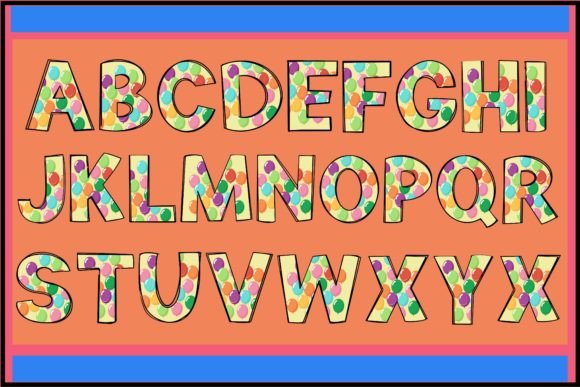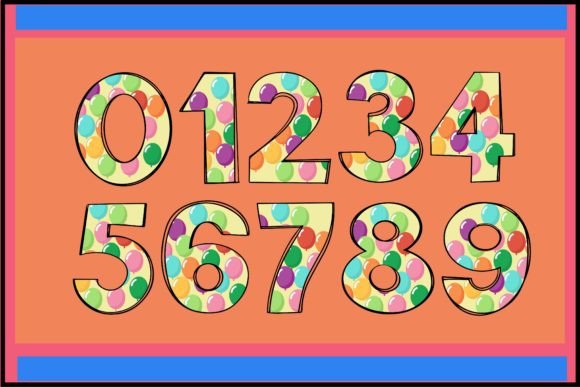
Introducing Balloon Font: The Playful and Colorful Choice for Kids’ Designs
Are you looking for a font that can add a touch of playfulness and cheerfulness to your designs? Look no further than Balloon Font! This cartoon-like font is perfect for children-themed designs, and when combined with bright colors, it’s sure to make your text stand out. In this article, we’ll explore the features and benefits of Balloon Font, and how you can use it to create outstanding designs for kids.
What is Balloon Font?
Balloon Font is a unique and colorful font that is designed to resemble balloons. Its cartoon-like appearance makes it perfect for kids’ designs, such as children’s books, posters, flyers, and party invitations. The font is playful, fun, and energetic, and is sure to capture the attention of kids and parents alike.
Features of Balloon Font
So, what makes Balloon Font so special? Here are some of its key features:
- Cartoon-like appearance: Balloon Font has a playful and cartoon-like appearance that is sure to delight kids.
- Colorful: The font comes in a range of bright and bold colors that are perfect for kids’ designs.
- Playful: Balloon Font has a fun and energetic feel that’s perfect for creating playful designs.
- Easy to read: Despite its playful appearance, Balloon Font is easy to read and understand, making it perfect for use in children’s books and educational materials.
Benefits of Using Balloon Font
So, why should you use Balloon Font in your designs? Here are some of the benefits:
- Adds dimension and cheerfulness: Balloon Font is capable of adding dimension and cheerfulness to any text, making it perfect for kids’ designs.
- Perfect for kids’ designs: The font is specifically designed for kids’ designs, making it a great choice for children’s books, posters, flyers, and party invitations.
- Versatile: The font can be used for a range of design projects, from digital designs to print materials.
How to Use Balloon Font
Using Balloon Font is easy! Here are some tips to get you started:
- Choose a bright color scheme: Balloon Font looks best when paired with bright and bold colors. Choose a color scheme that’s fun and playful, and that matches the theme of your design.
- Experiment with font sizes: Balloon Font looks great in a range of font sizes, from large headings to smaller body text.
- Use it for headings and titles: Balloon Font is perfect for use in headings and titles, where its playful appearance can really make an impact.
- Combine it with other fonts: Balloon Font can be combined with other fonts to create a unique and interesting design.
Design Ideas Using Balloon Font
So, what can you create with Balloon Font? Here are some design ideas to get you started:
- Children’s books: Balloon Font is perfect for use in children’s books, where its playful appearance can help to engage young readers.
- Party invitations: The font is great for use in party invitations, where its fun and energetic feel can help to set the tone for a fun celebration.
- Posters and flyers: Balloon Font can be used to create eye-catching posters and flyers that are perfect for kids’ events and activities.
- Digital designs: The font can be used in digital designs, such as social media graphics and blog posts, where its playful appearance can help to engage audiences.
| Font Name | Balloon Font |
| Author | BA store |
Balloon Font is a fun and playful font that’s perfect for kids’ designs. Its cartoon-like appearance and bright colors make it a great choice for children’s books, posters, flyers, and party invitations. With its ease of use and versatility, Balloon Font is a great addition to any designer’s toolkit. So why not give it a try and see what amazing designs you can create?